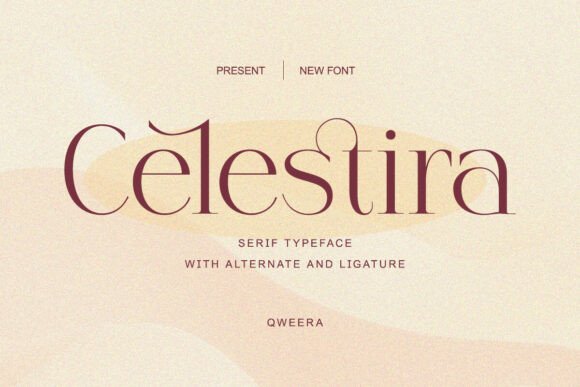
Introducing Celestira Font: The Epitome of Modern Serif Elegance
In the realm of typography, few fonts manage to strike a balance between classic sophistication and modern luxury. Celestira Font is one such exceptional typeface that seamlessly merges the elegance of traditional serif fonts with the refined curves and stylish ligatures of contemporary design. This beautiful font is a game-changer for designers and crafters seeking to infuse their projects with a touch of luxury, femininity, and poetic charm.
Design Philosophy and Features
At its core, Celestira is designed to exude sophistication and softness, making it an ideal choice for projects that demand a high level of elegance. The font’s refined details and delicate shapes are meticulously crafted to bring visual poetry to creative projects. With its classic serif structure, Celestira pays homage to traditional typography while its graceful curves and stylish ligatures inject a dose of modernity.
One of the standout features of Celestira Font is its PUA (Private Use Area) encoding. This means that the font includes an extensive range of glyphs, swashes, and alternate characters that can be accessed with ease, allowing designers to customize their creations without any hassle. Whether you’re working on luxury branding, editorial layouts, or wedding designs, Celestira offers the flexibility and elegance you need.
Ideal Applications for Celestira Font
Given its unique blend of classic elegance and modern luxury, Celestira Font finds its application in various design projects. Here are some areas where Celestira truly shines:
• Luxury Fashion Branding: For high-end fashion brands looking for a typography solution that speaks of elegance and sophistication, Celestira is an impeccable choice. Its refined and delicate appearance makes it suitable for logos, packaging, and marketing materials.
• Editorial Magazine Layouts: The font’s classic serif structure and modern twists make it perfect for editorial layouts, especially for magazines and publications focusing on lifestyle, beauty, and fashion.
• Elegant Wedding Stationery: For wedding designs, including invitations, menus, and place cards, Celestira brings a touch of romance and sophistication. Its elegant appearance sets the tone for a luxurious and memorable event.
• Beauty Product Packaging: In the beauty and cosmetics industry, packaging plays a crucial role in brand perception. Celestira Font helps beauty brands communicate luxury and quality through its elegant typography.
• Feminine Logo Designs: For businesses or brands looking for a logo that embodies femininity and elegance, Celestira offers a versatile solution that can be tailored to meet specific design requirements.
• Social Media Graphics: For social media content that needs to stand out with a classy vibe, Celestira can elevate your graphics, making them more engaging and sophisticated.
Why Choose Celestira Font?
Choosing Celestira Font for your design projects comes with numerous benefits. Here are a few reasons why designers and crafters are gravitating towards this beautiful typeface:
• Unique Blend of Elegance and Modernity: Celestira offers a rare combination of classic elegance and modern luxury, making it versatile for various design applications.
• Ease of Use: Being PUA-encoded, Celestira allows for effortless access to a wide range of glyphs and swashes, making customization straightforward.
• High Versatility: Whether it’s luxury branding, editorial designs, or wedding stationery, Celestira adapts to different design needs with ease.
• Poetic Luxury: The font brings a poetic charm to designs, making them more captivating and memorable.
Font Name Celestira Font
Author Qweera Studio
Celestira Font is more than just a typeface; it’s a design statement that combines the best of classic elegance and modern sophistication. For designers and crafters looking to elevate their projects with a touch of luxury, femininity, and poetic charm, Celestira is an unparalleled choice. Its versatility, ease of use, and stunning appearance make it suitable for a wide range of applications, from luxury fashion branding to elegant wedding stationery. With Celestira, you can bring visual poetry to your designs and make them truly unforgettable.